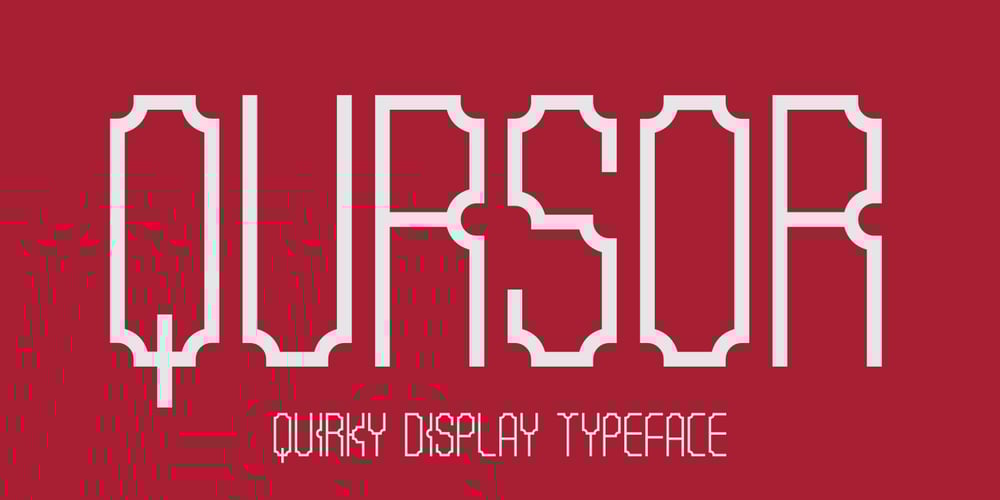
Qursor Font Family was designed by Saiful Anwar and published by Sealoung. Qursor contains 1 styles and family package options. Introducing our latest display font, designed to make a bold statement in your projects. This versatile typeface is perfect for headlines, posters, logos, and any other design where you want to grab attention. With its unique character shapes and modern style, this font adds a touch of to any creative endeavor.Key Features:Unique character designs that stand outModern and stylish appearancePerfect for headlines, posters, logos, and moreVersatile and easy to use in various design applicationsElevate your designs with our display font and create stunning visuals that leave a lasting impression.